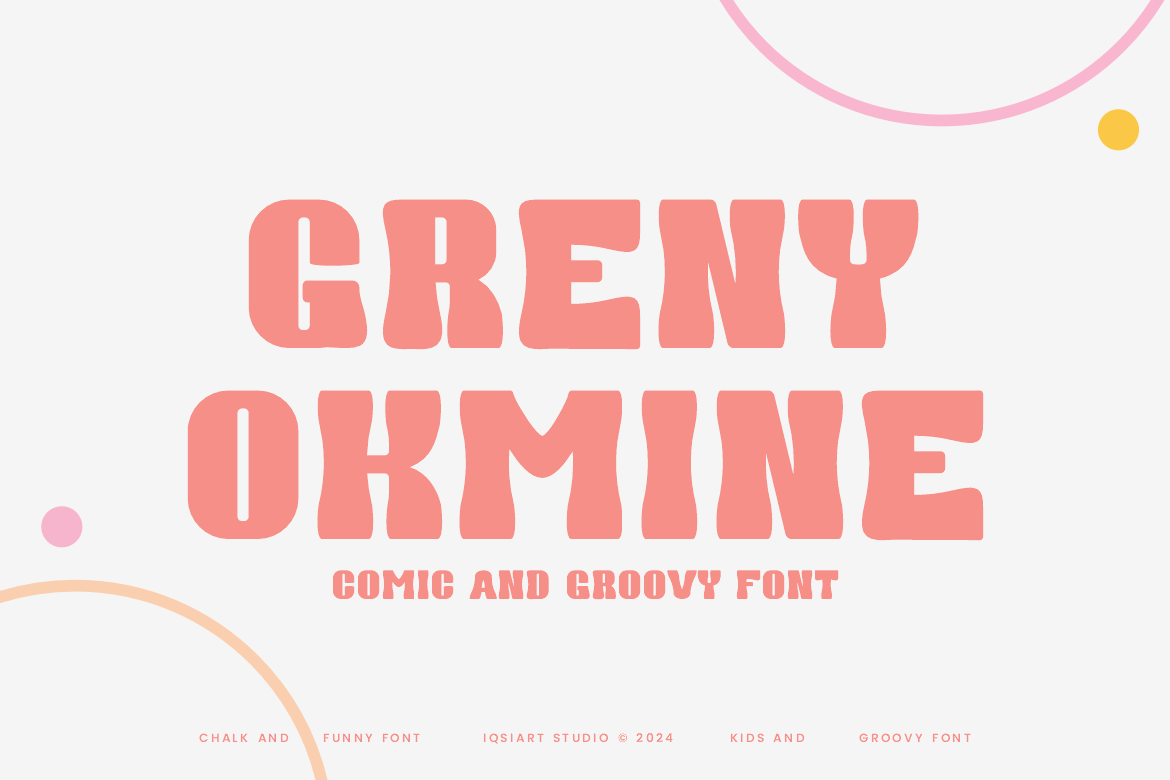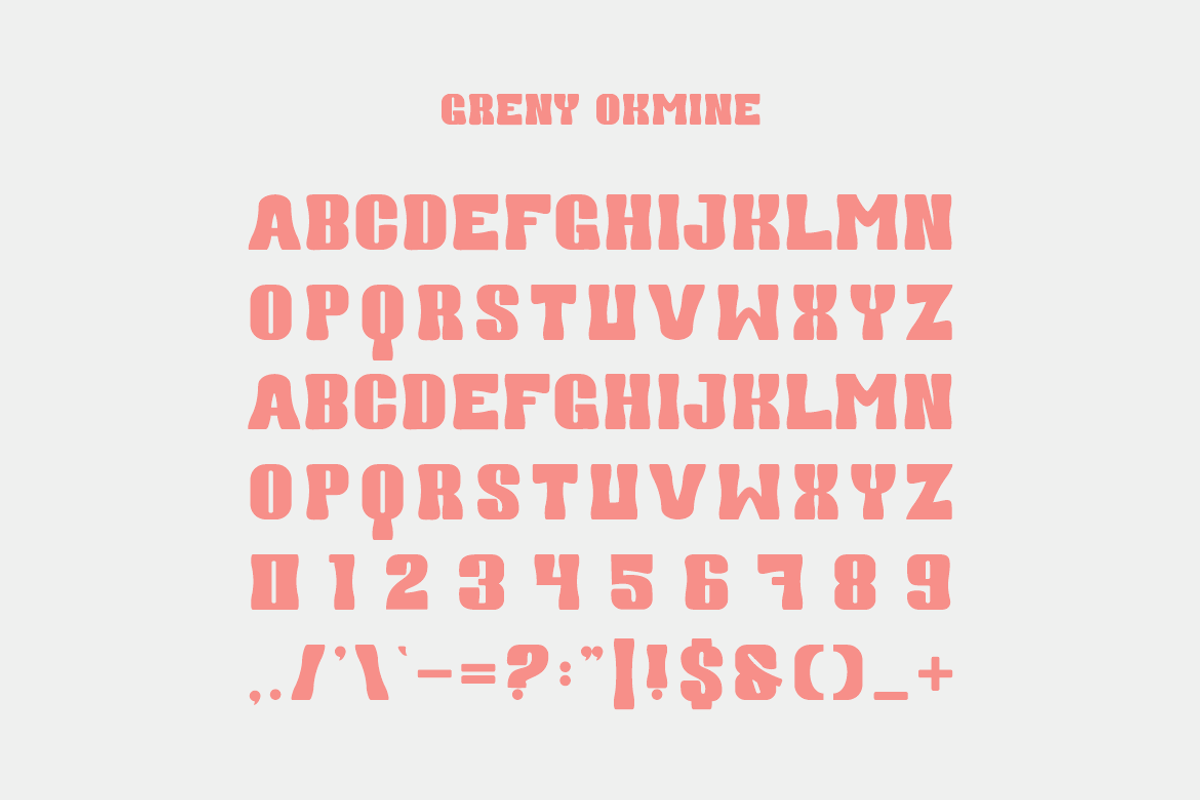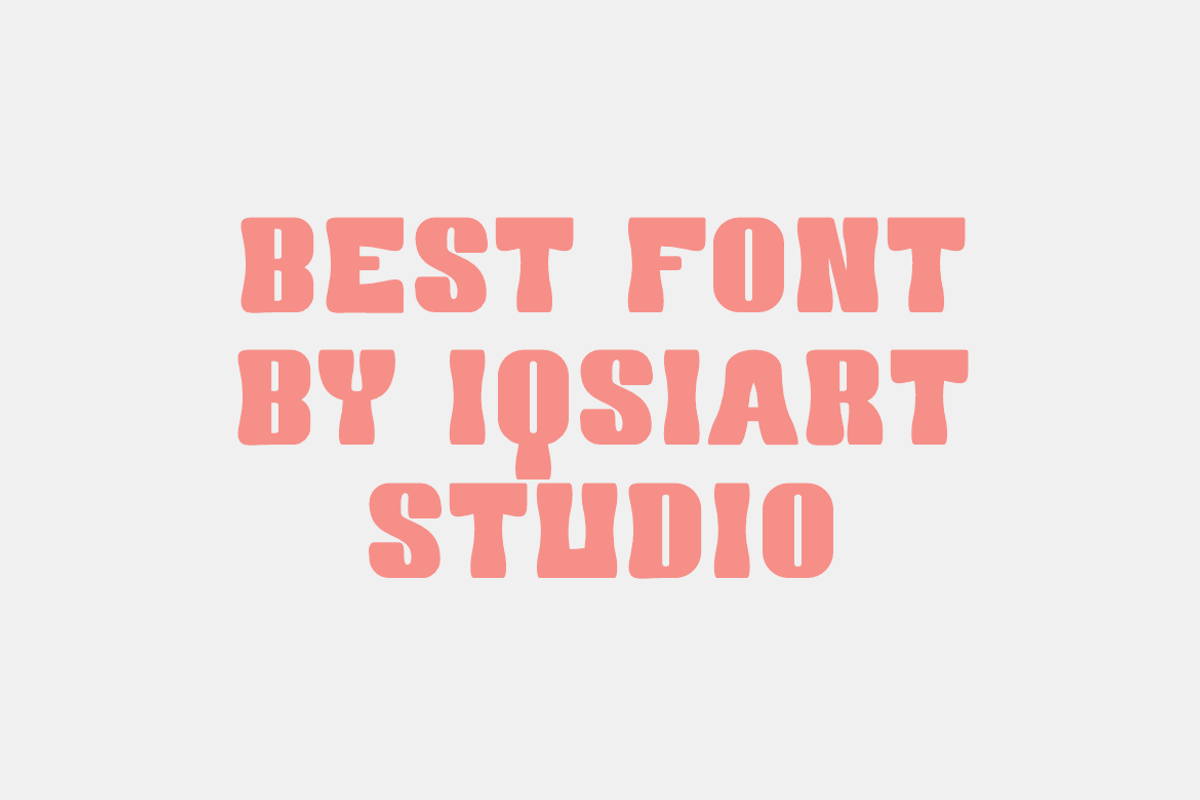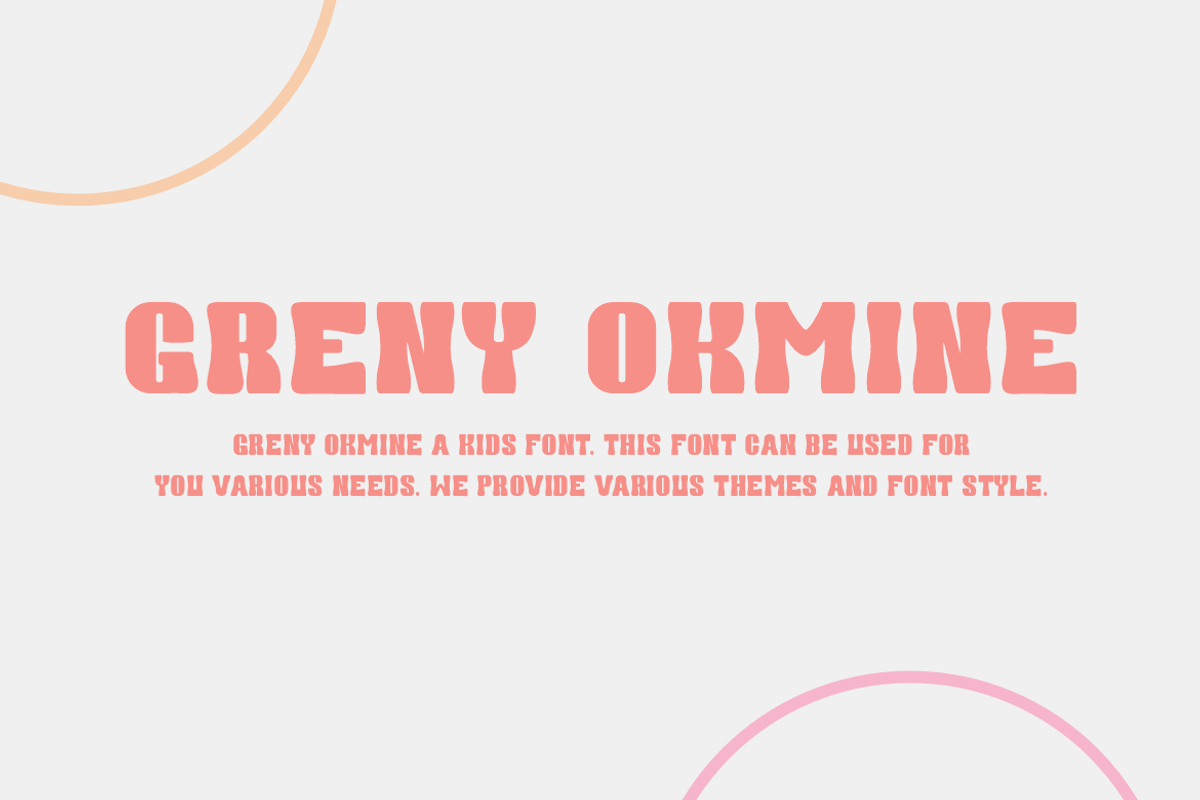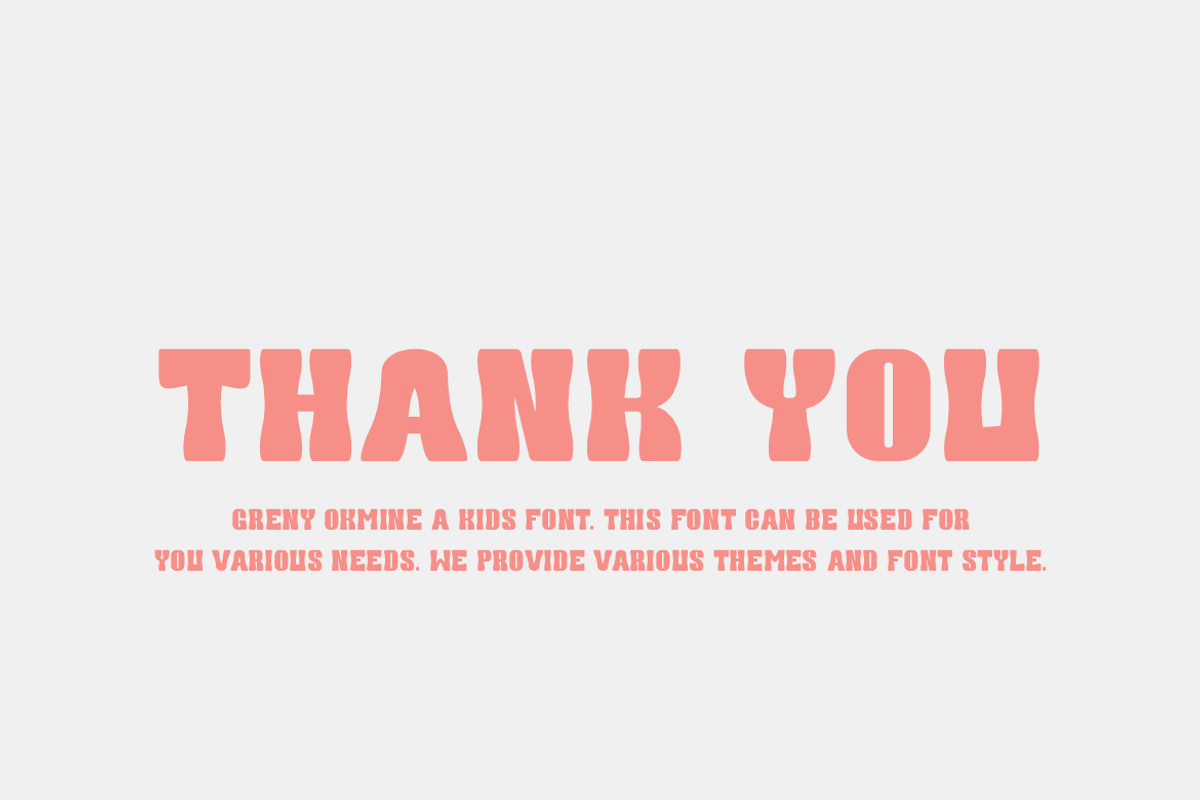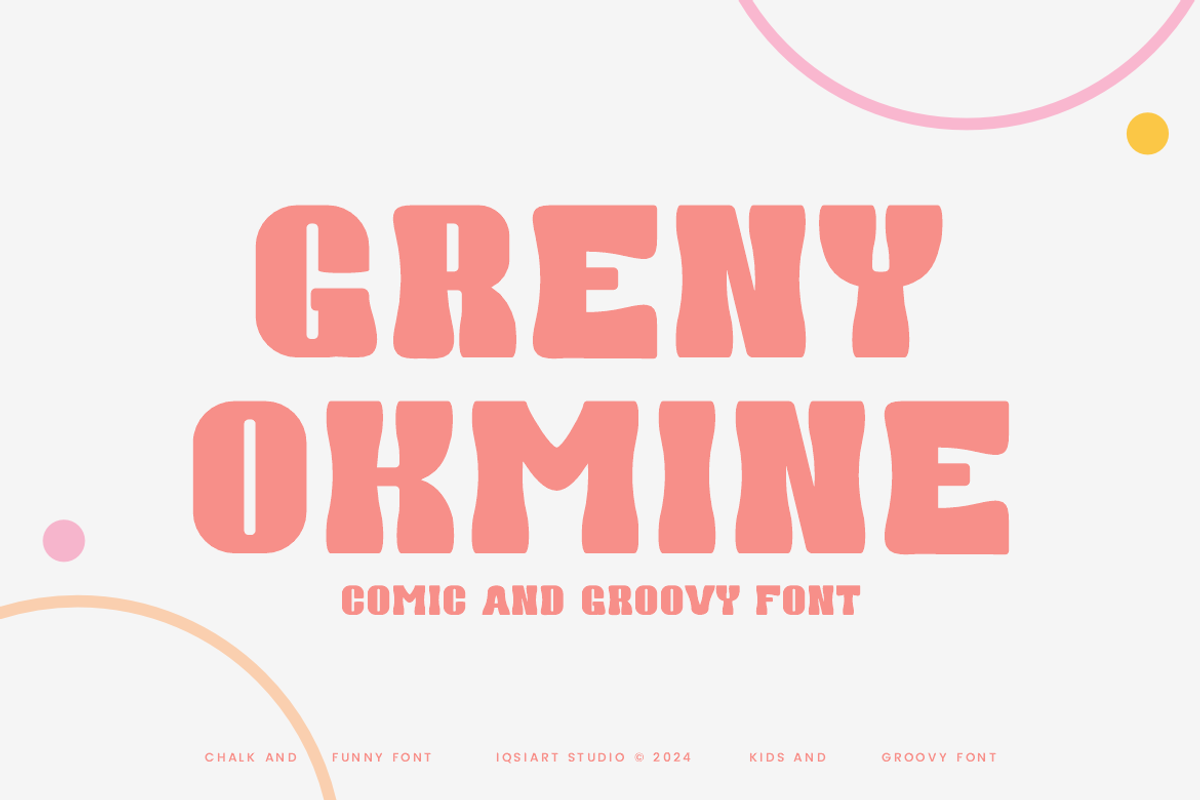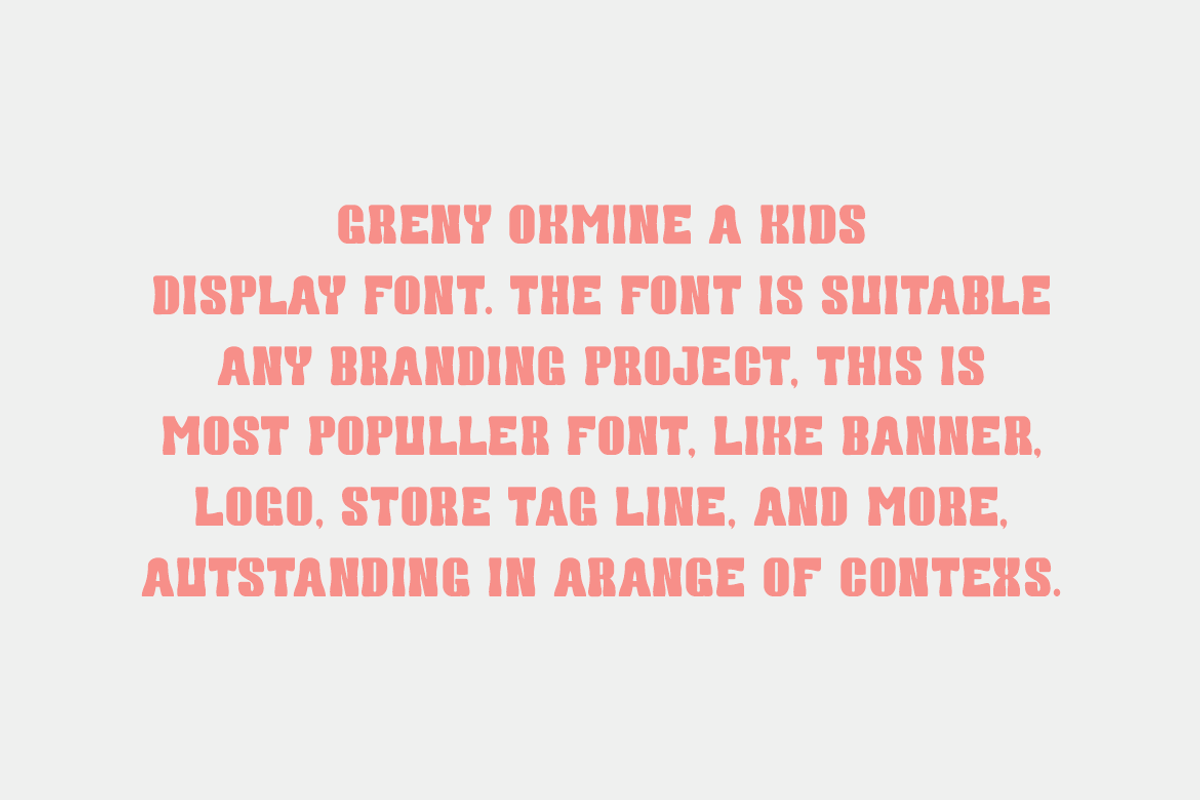
Greny Okmine - Groovy Font
Greny Okmine Font is a best and authentic display font. This font can be used for your various needs. We provide various themes and font styles. visit our profile to get a wide variety of themes and different font styles you need.